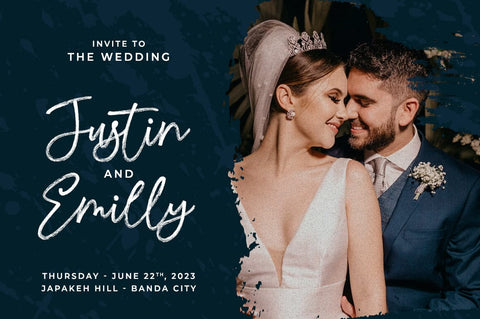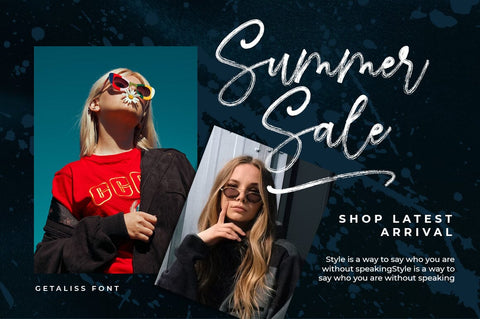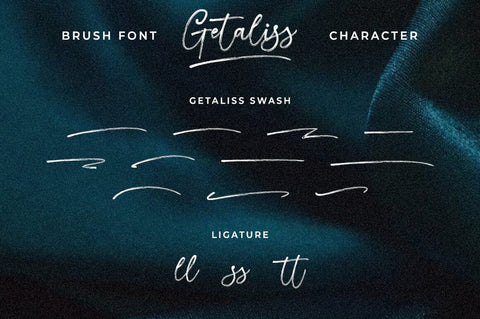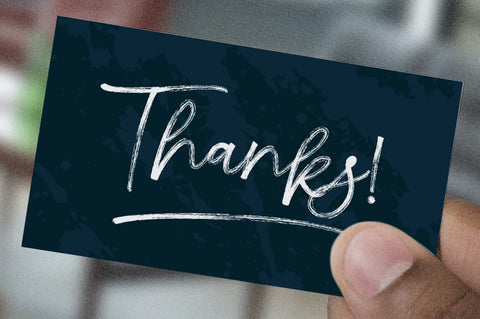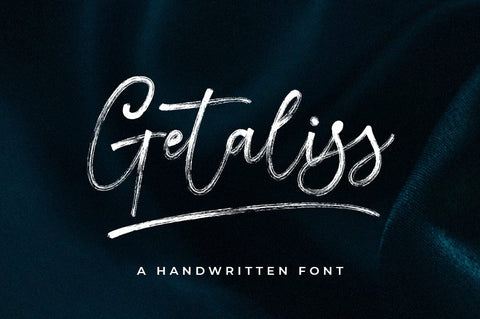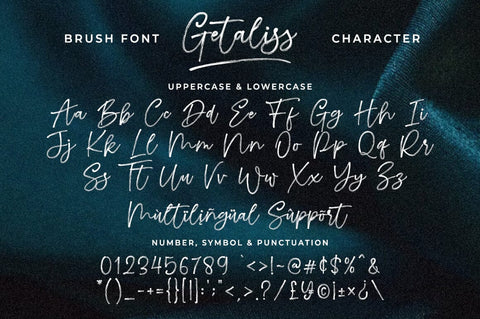
Getaliss
Getaliss is a casual script font suitable for a variety of projects, such as branding, invitations, merchandise, websites, advertisements, magazines and more. You'll get a full set of lowercase and uppercase letters, numbers and punctuation, multilingual symbols, ligatures, and extra strokes.